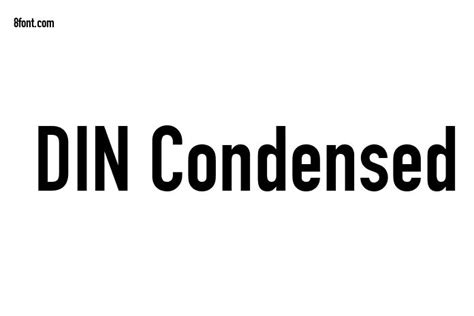
Font Din Condensed Bold. A sans serif typeface with 2 styles,. Web explore din condensed designed by manvel shmavonyan, tagir safayev at adobe fonts.
A sans serif typeface with 2 styles,. Web explore din condensed designed by manvel shmavonyan, tagir safayev at adobe fonts.
Web explore din condensed designed by manvel shmavonyan, tagir safayev at adobe fonts. Web explore din condensed designed by manvel shmavonyan, tagir safayev at adobe fonts. A sans serif typeface with 2 styles,.